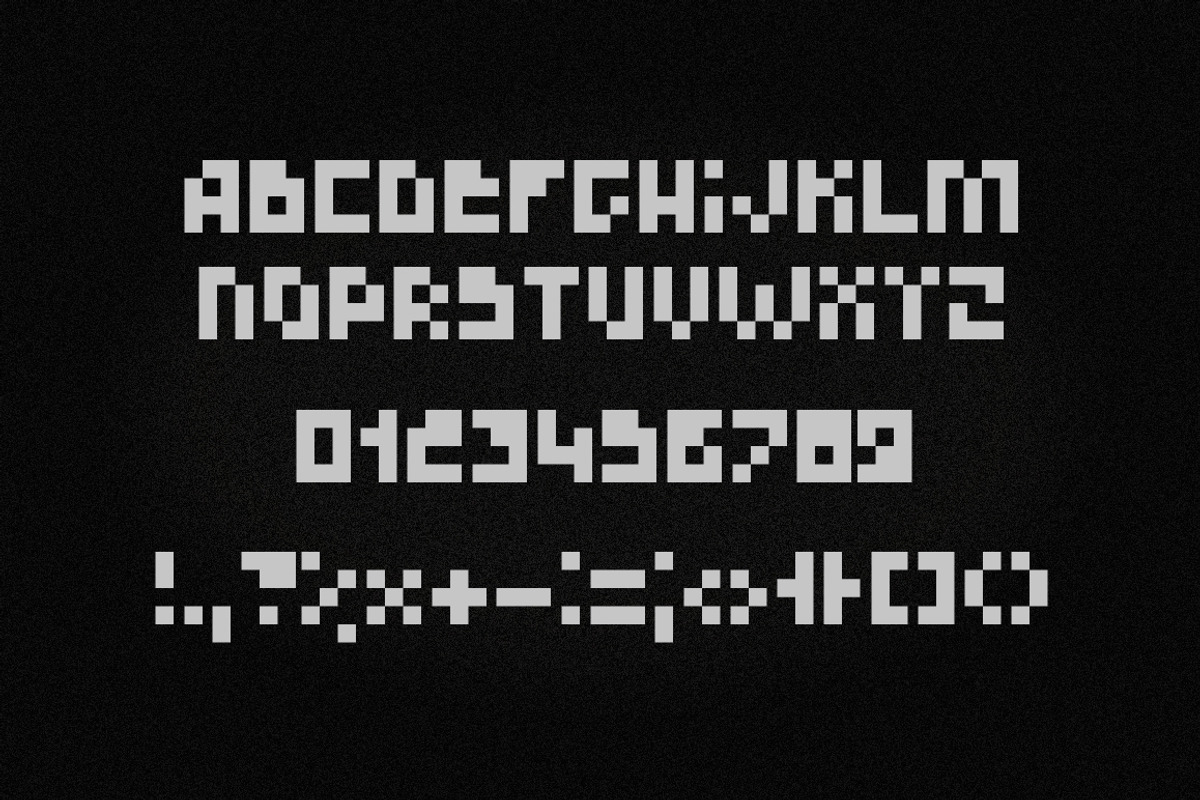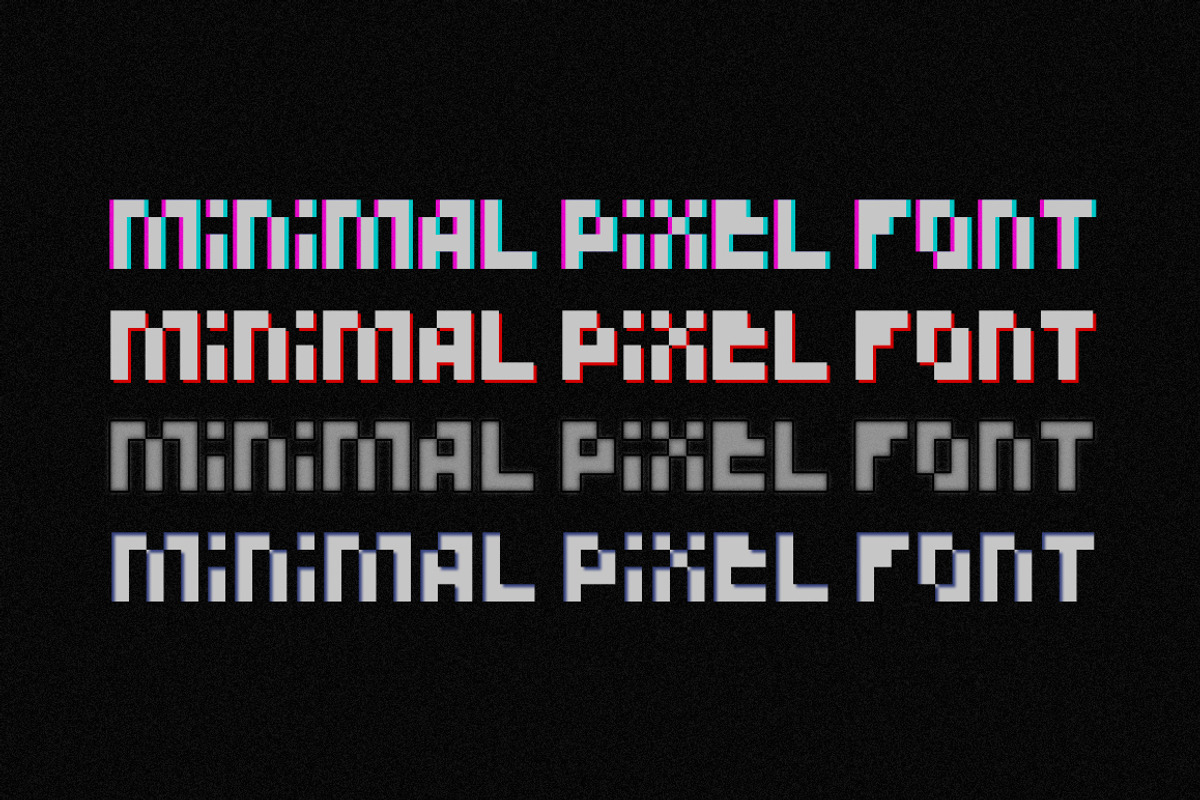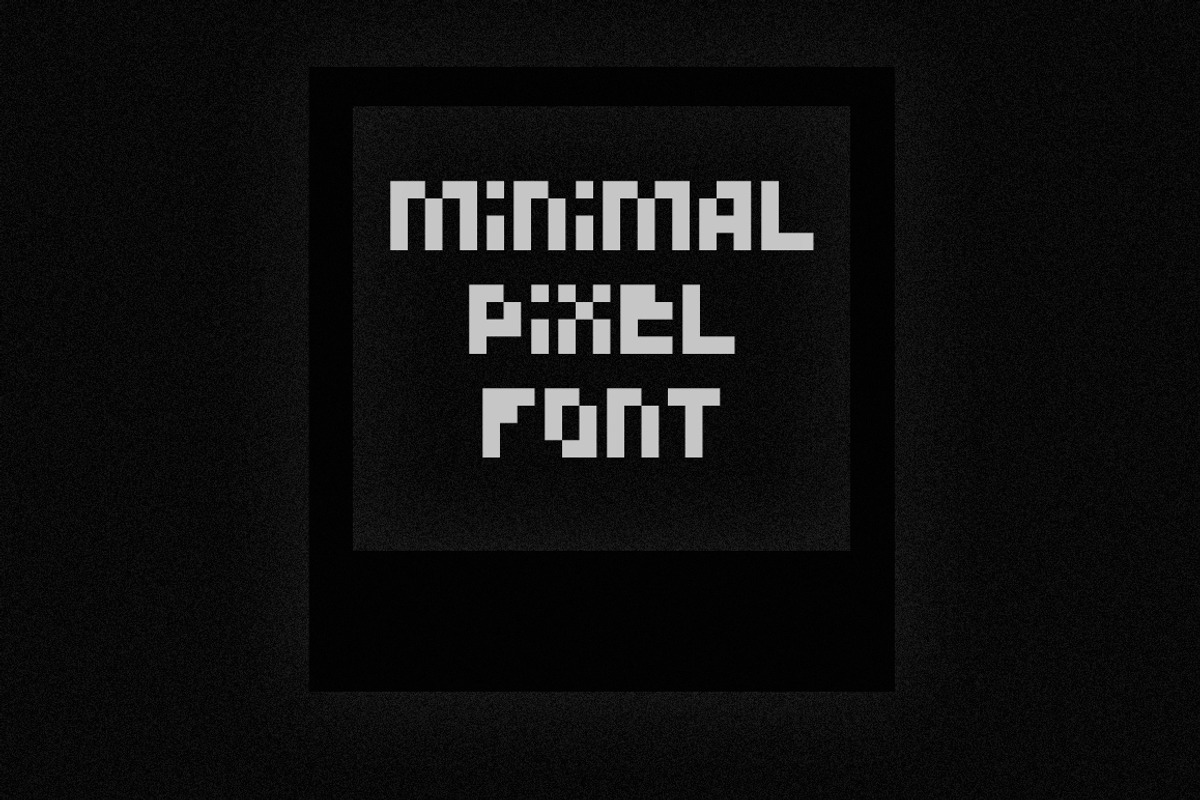
Minimal Pixel Font
Minimal Pixel Font by Firsik is a font selected for branding, posters, packaging, typography.
Why Minimal Pixel Font is worth a look
Minimal Pixel Font by Firsik fits naturally into Branding, posters, packaging, typography.